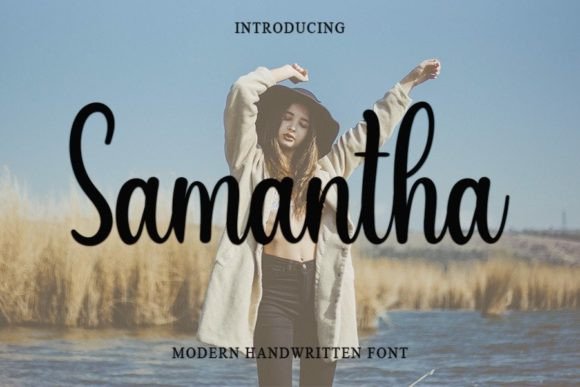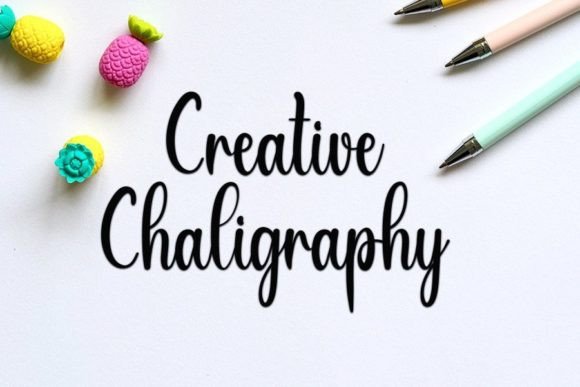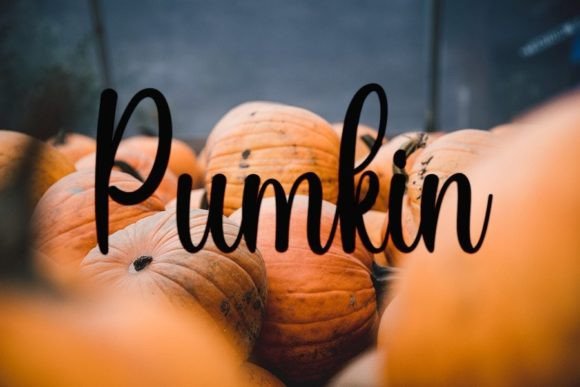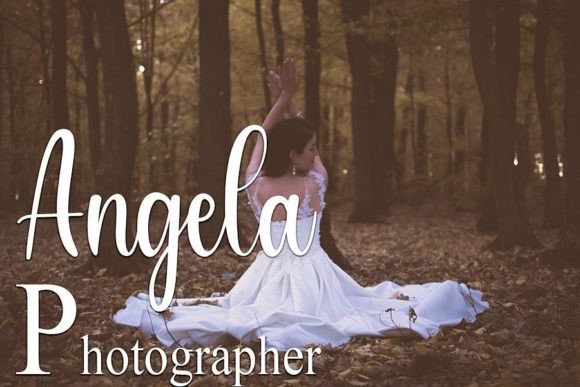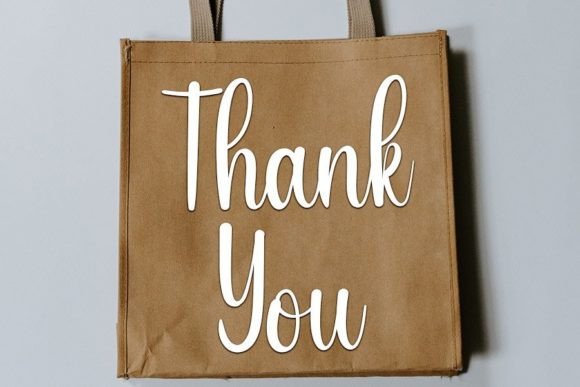
Samantha Font
About Samantha Font
“Samantha” is not just a font; it’s a carefully crafted expression of neatness and beauty, adorned with an elegant touch that transforms your favorite projects into works of art. This handwritten font is more than a mere collection of letters; it’s an invitation to fall in love with design, offering a canvas for your creative visions that is both distinct and timeless. “Samantha” stands poised to become an essential element in your design toolkit, ready to elevate your work with its exceptional style.
At its essence, “Samantha” is a manifestation of neatness and beauty, where each stroke is deliberate and every character radiates refined grace. This font is the perfect choice for a wide range of creative applications. Whether you’re crafting invitations for a special occasion, working on branding materials that demand attention, or engaging in any design project where elegance is paramount, “Samantha” is prepared to infuse your work with a touch of sophistication.
The handwritten authenticity of “Samantha” is where its charm truly lies. Each character possesses a distinct style that adds a personal touch to your designs, fostering a deeper connection with your audience. This font transcends the realm of mere letters; it becomes an expressive tool, allowing you to imbue your projects with a unique personality. Fall in love with the artistry of each stroke, and witness as your designs come alive with a refined and sophisticated aura.
What makes “Samantha” stand out is its timeless adaptability. In a design landscape that constantly evolves, this font remains a steadfast companion. Its versatility ensures that your projects stay relevant and captivating, enduring the ebb and flow of design trends. “Samantha” isn’t just following the design zeitgeist; it’s setting its own standards, offering a classic aesthetic that withstands the test of time.
As you navigate through the characters of “Samantha,” you’re not just selecting a font; you’re embarking on a design journey. It becomes a vessel for your creative expression, turning your ideas into spectacular designs. Whether you’re crafting digital artwork, designing marketing materials, or shaping an entire brand identity, “Samantha” provides a seamless and elegant backdrop for your imagination to flourish.
In conclusion, “Samantha” is more than a font choice; it’s an artistic companion that enhances your creative endeavors. It’s an ode to neatness, beauty, and timeless elegance—a tool that empowers you to create designs that leave an enduring impact. So, let “Samantha” be the brush with which you paint your creativity, and savor the distinct and captivating style it brings to your spectacular designs.